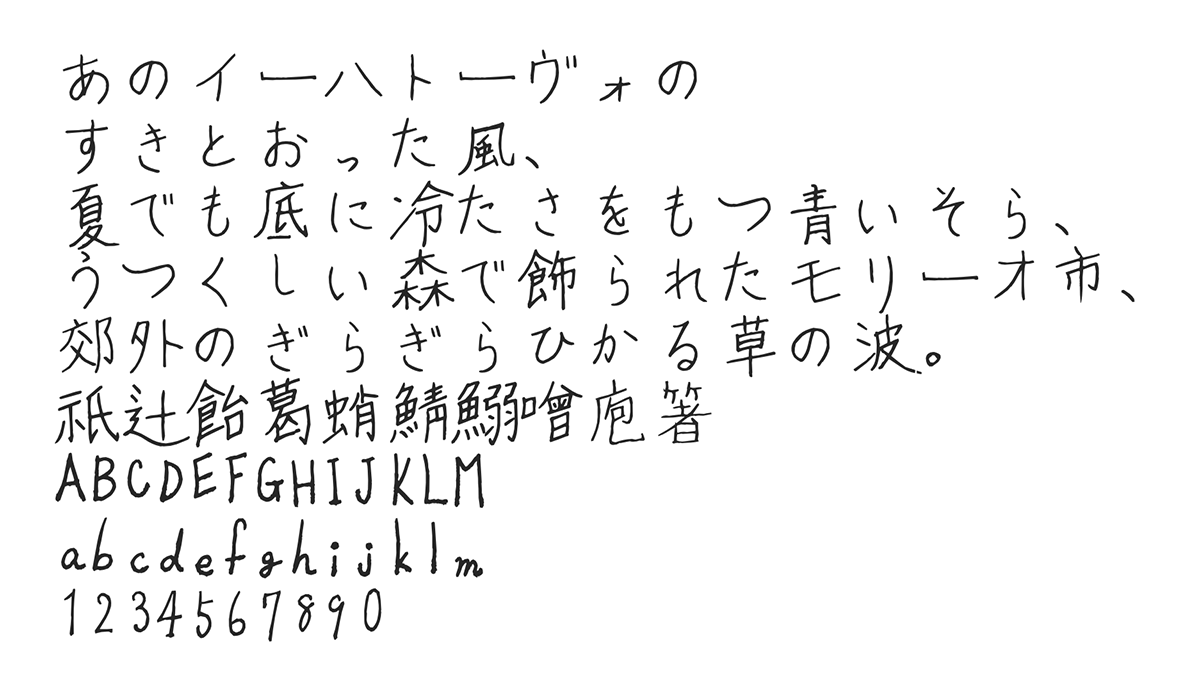
Mogiha Pen Font
Mogiha Pen Font (モギハ・ペン字フォント) is a free Japanese font handwritten with a fountain pen. It was created manually, handwritten by the Illustrator named Mogiha, hence the name of the font. The characters retained the strong handwriting feel with the aforementioned pen, as you can also see the textures of the ink is still quite visible. The handwriting style it gives a very cheerful, relaxing and friendly vibe. To me, the character style feels like of those physical handwriting letters to friends.
- Hiragana and Katakana
- Kanji (Shift JIS Level 1 + 2, Extended Characters)
- Alphanumerics
- Symbols and Punctuations